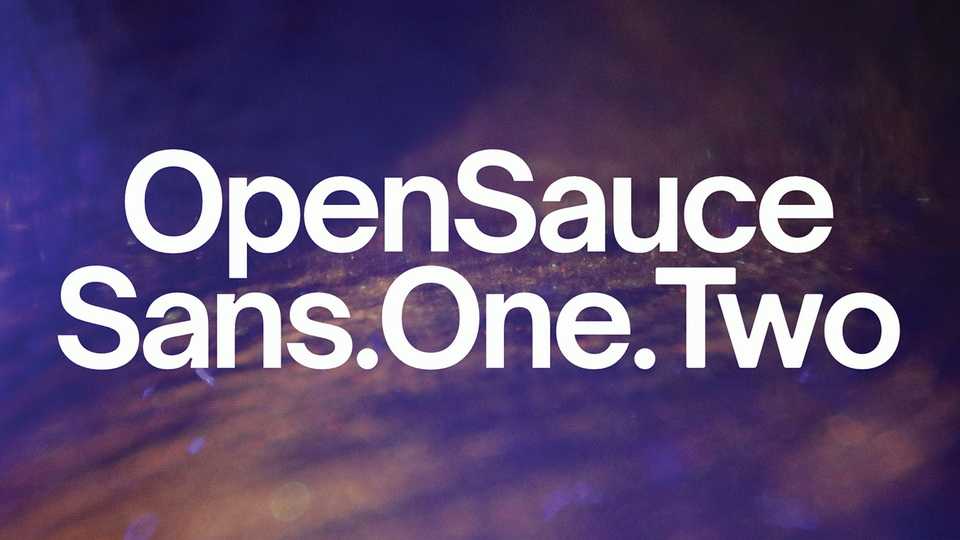
Download Open Sauce typeface, a modern grotesque sans serif font family in three variations and 42 styles, optimized for better viewing small text on screen and print.
Designer: Alfredo Marco Pradil